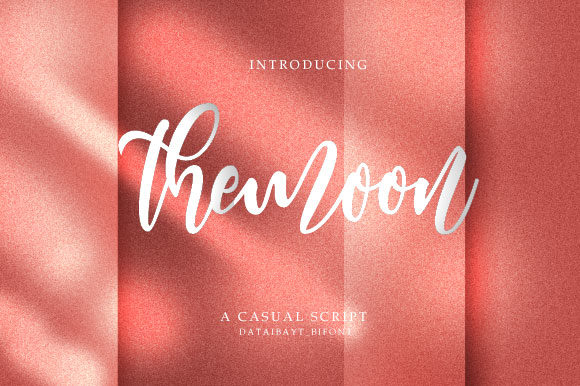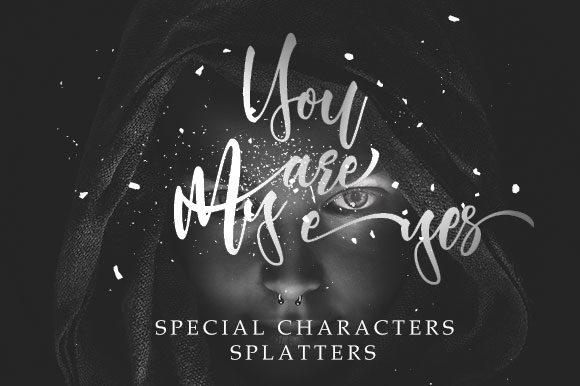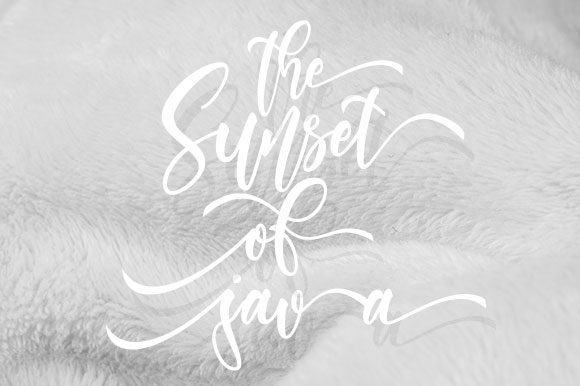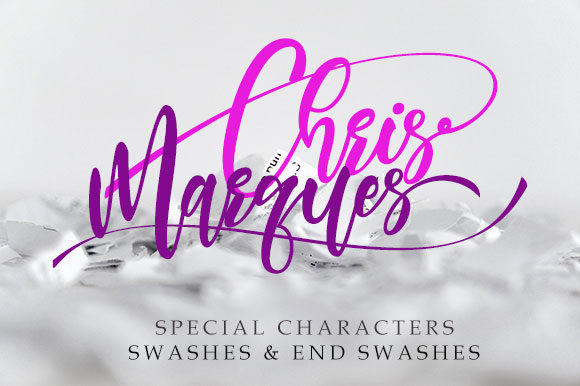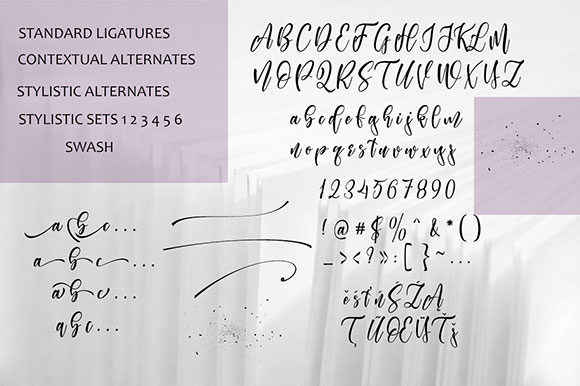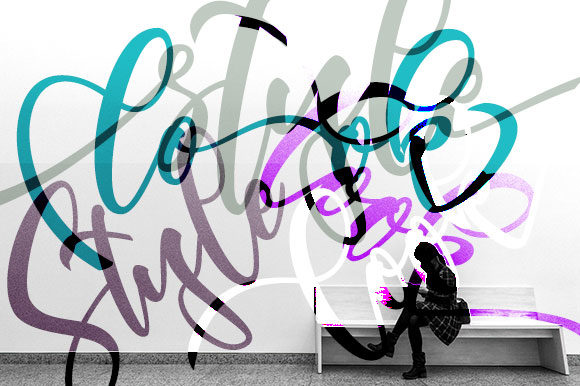
Themoon Font
About Themoon Font
Themoon is a casual and flowing handwritten font.This font is the perfect fit for all of your logos, branding, social media, and crafty DIY projects.